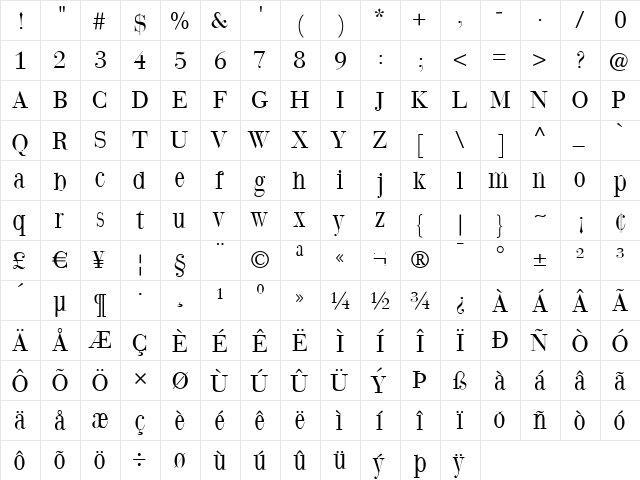
SteepodoniRoman Regular
Design Context for SteepodoniRoman Typeface
SteepodoniRoman offers clean, dependable letterforms without strong stylistic allegiance, making it a practical choice for designers who need flexibility.